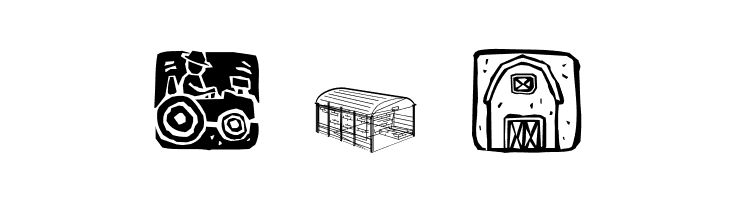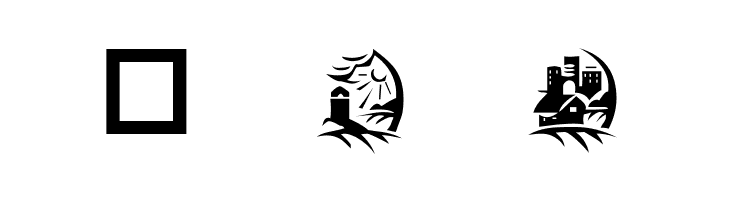
A bold, geometric font with a distressed, industrial texture.
Farm-themed dingbat font with detailed rural illustrations.
A decorative font featuring detailed illustrations of rural life elements.
A collection of detailed agricultural-themed icons and symbols.
A decorative font with farm-themed illustrations for a rustic aesthetic.
Farm-themed dingbat font with cartoon-style illustrations.
A decorative font with farm-themed icons in bold, circular designs.
A decorative font featuring farm-themed icons with bold, graphic silhouettes.
A decorative font with farm-themed illustrations for each character.